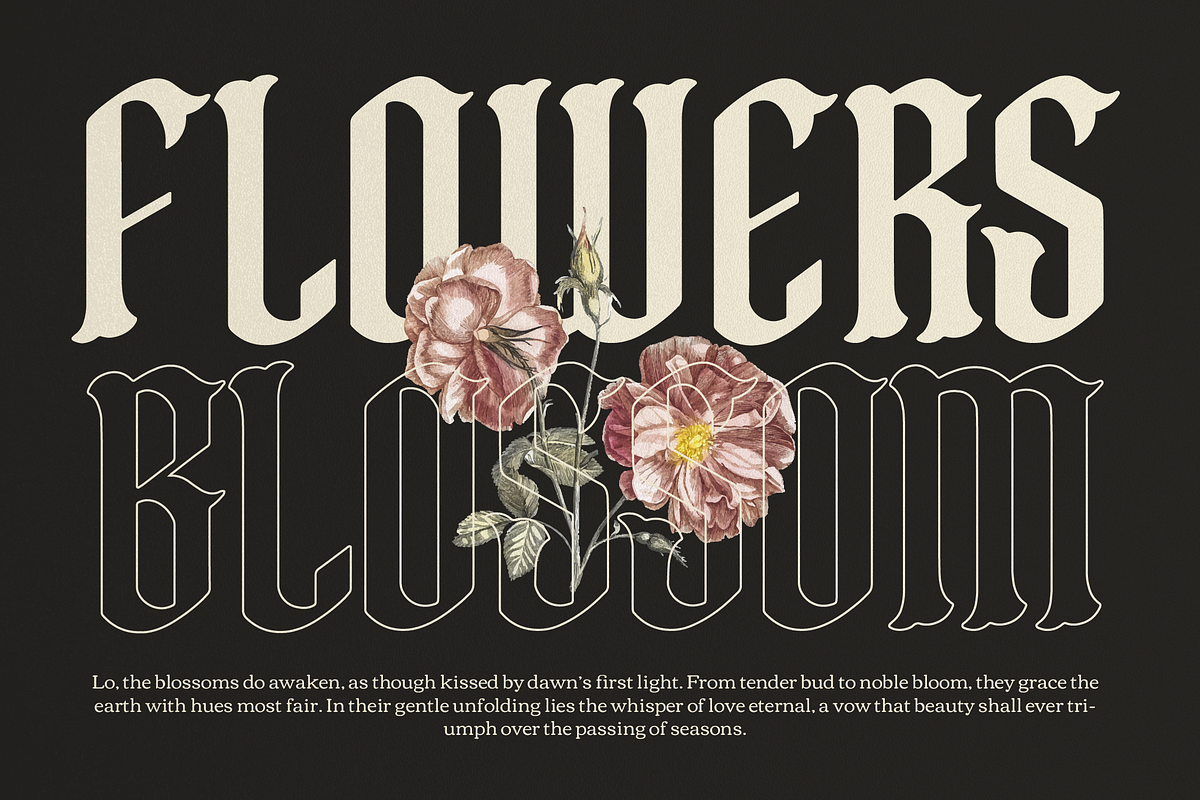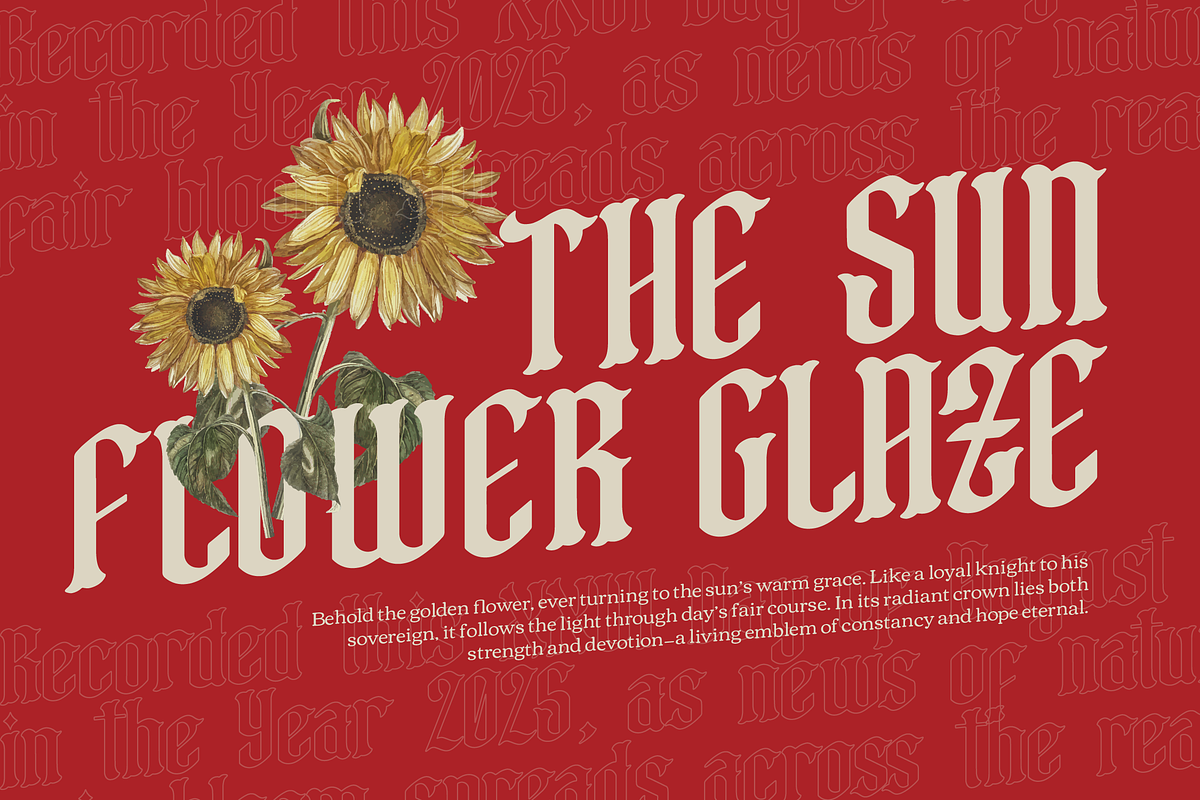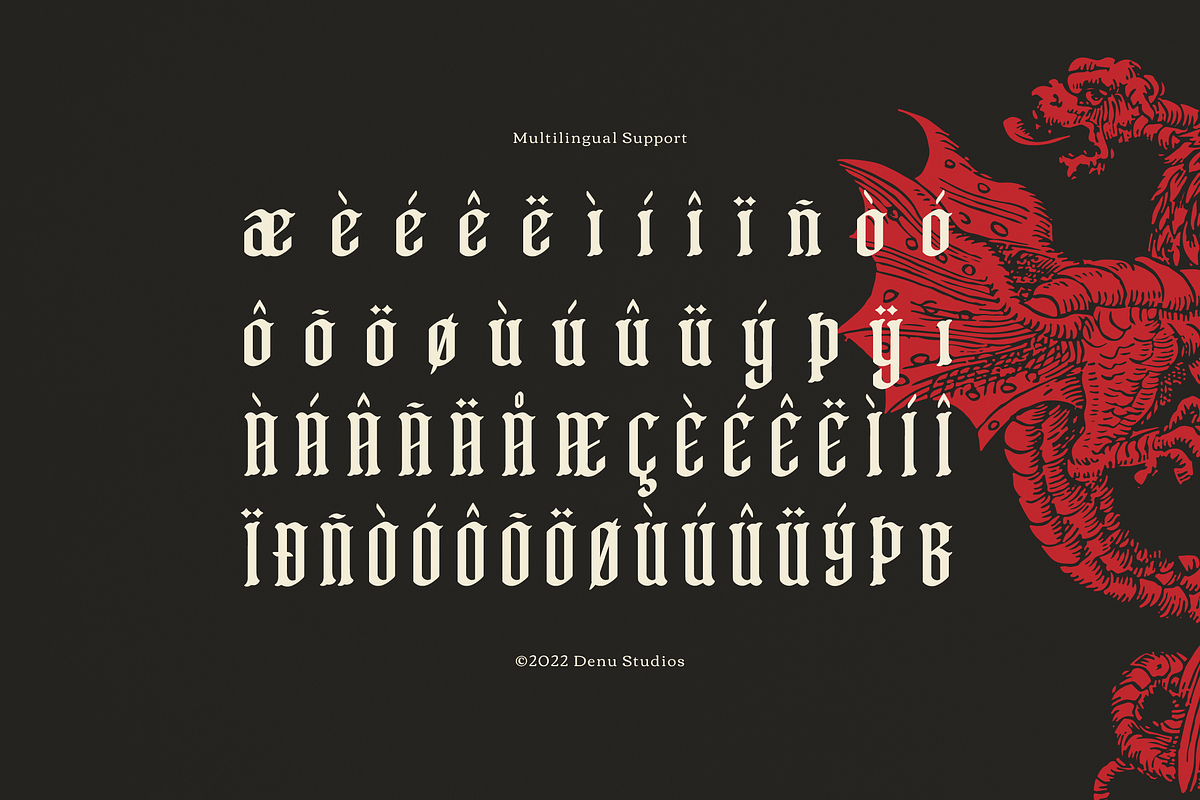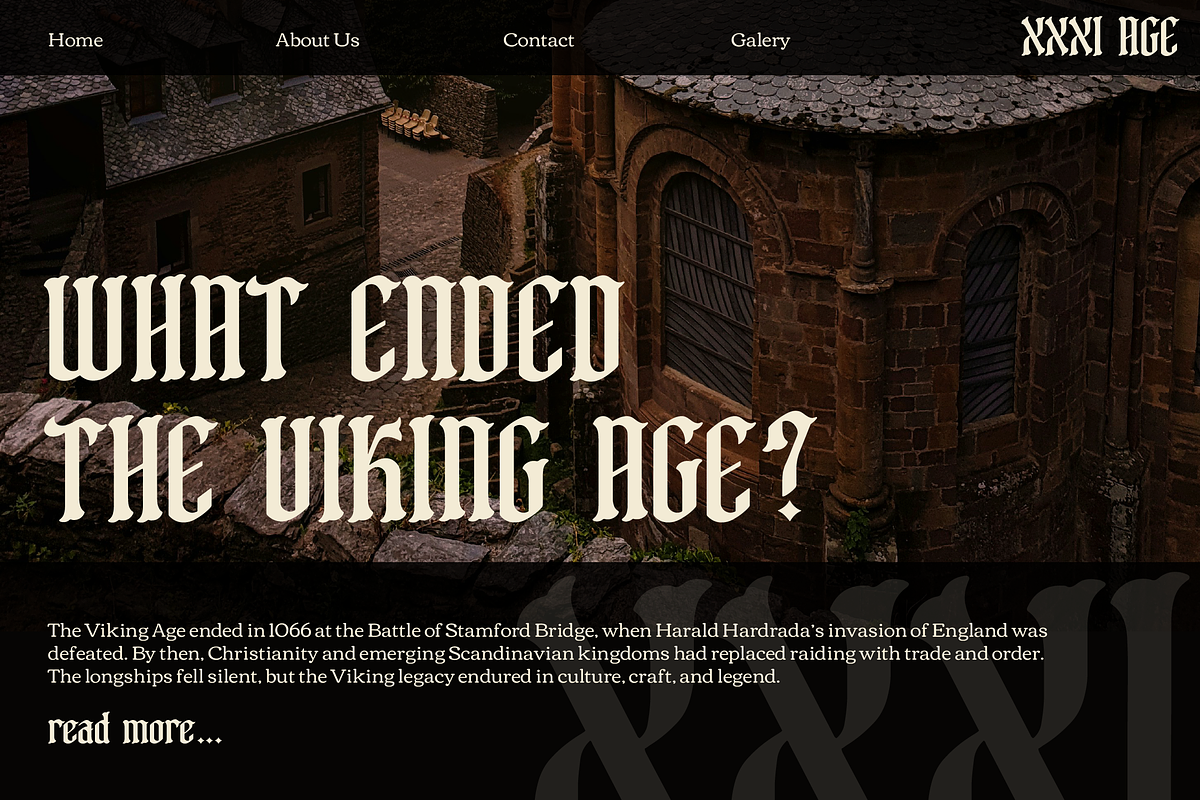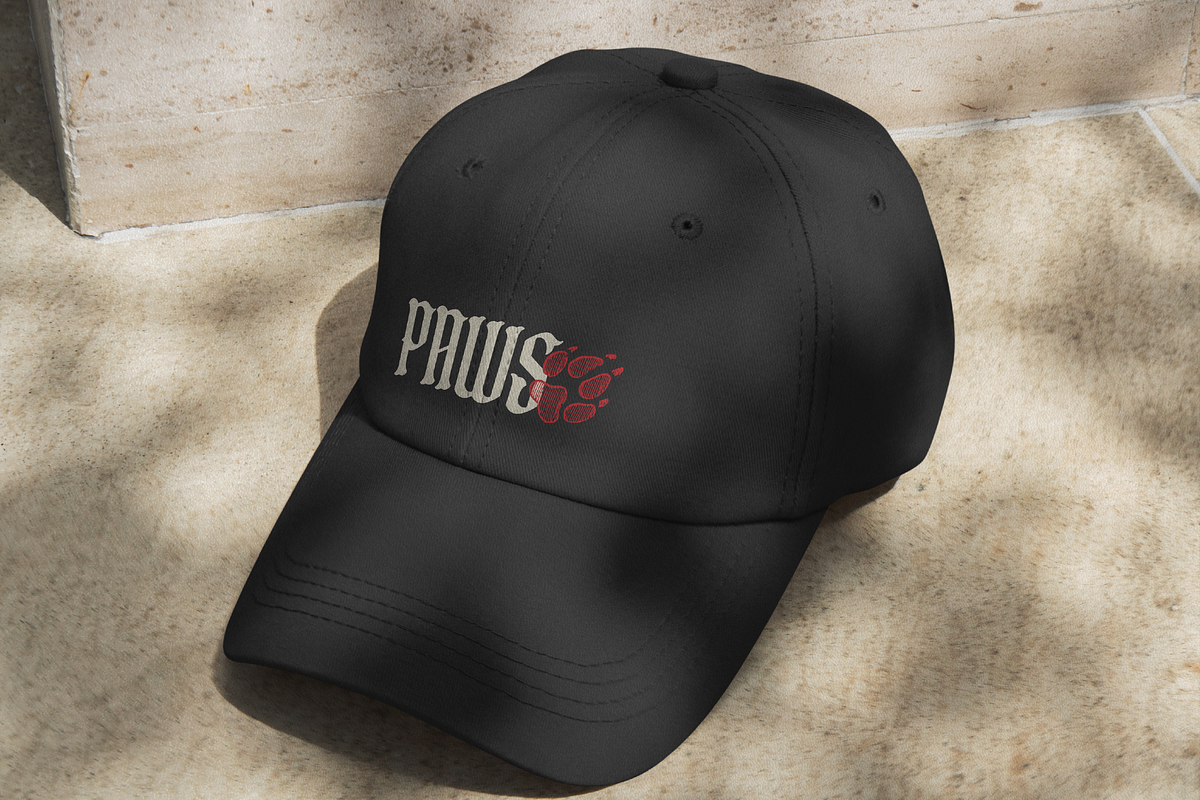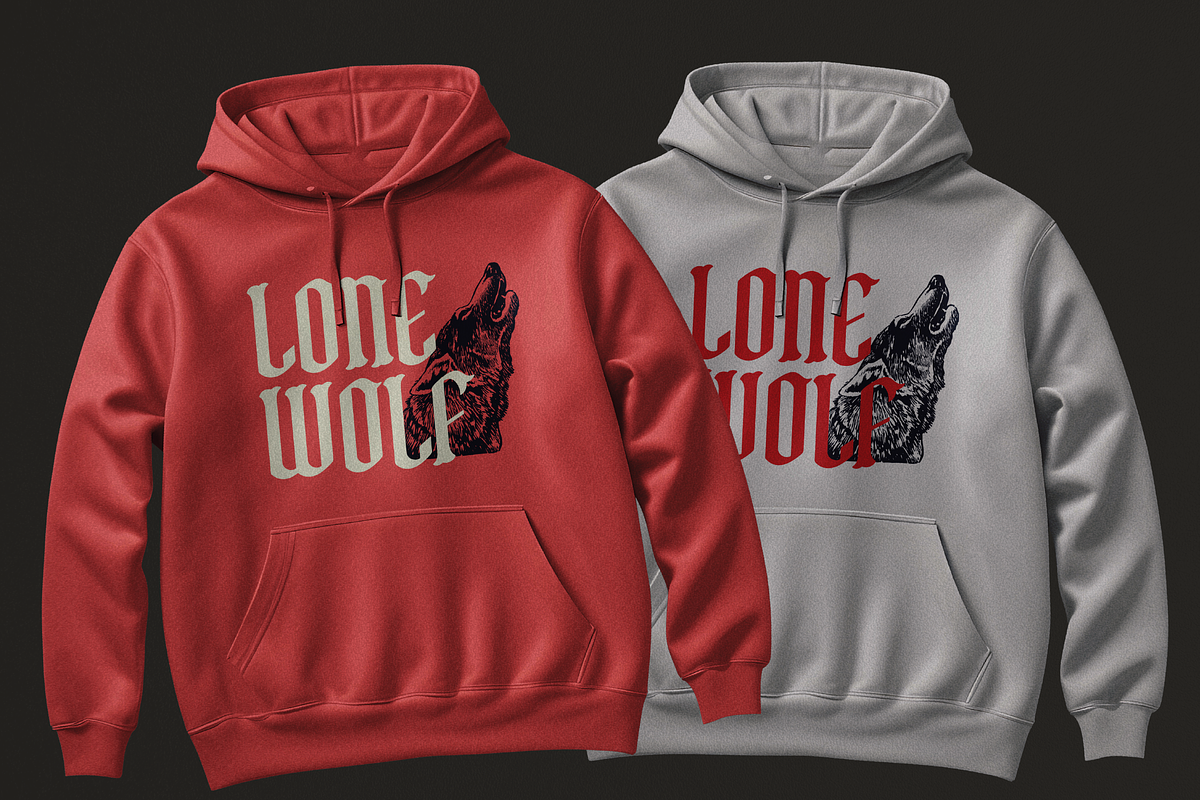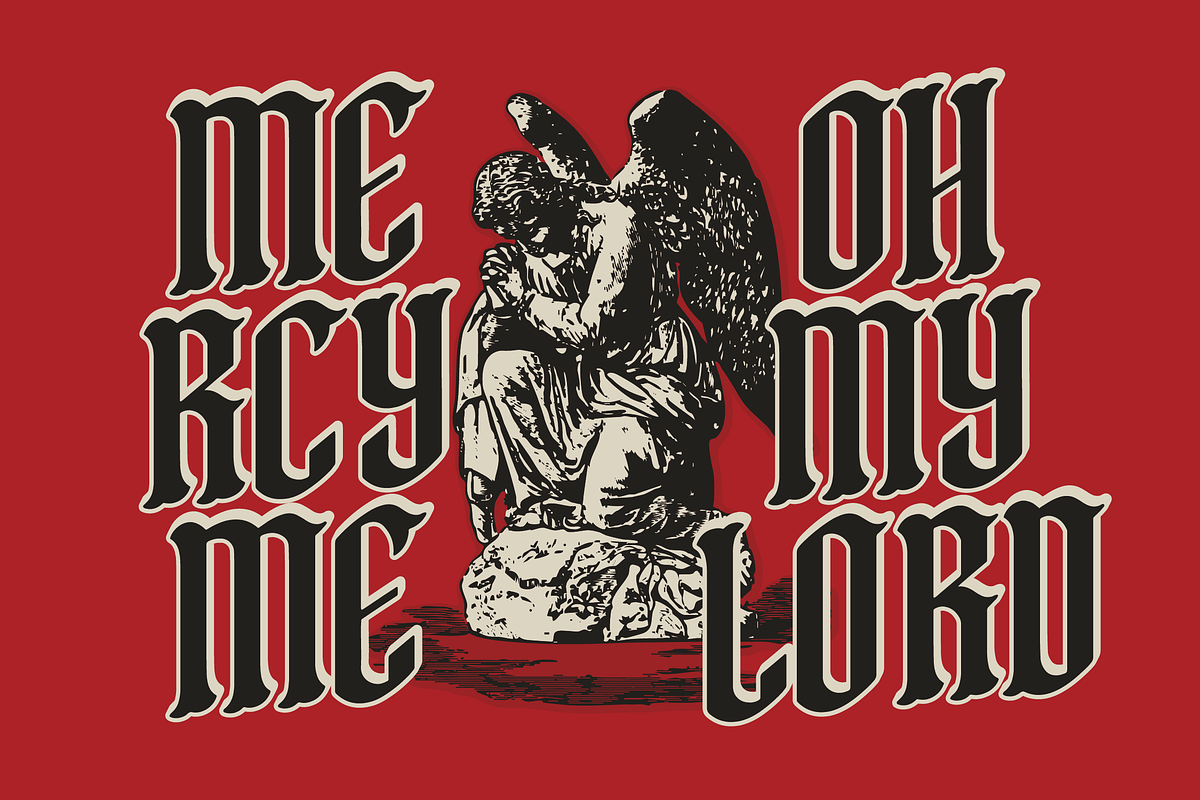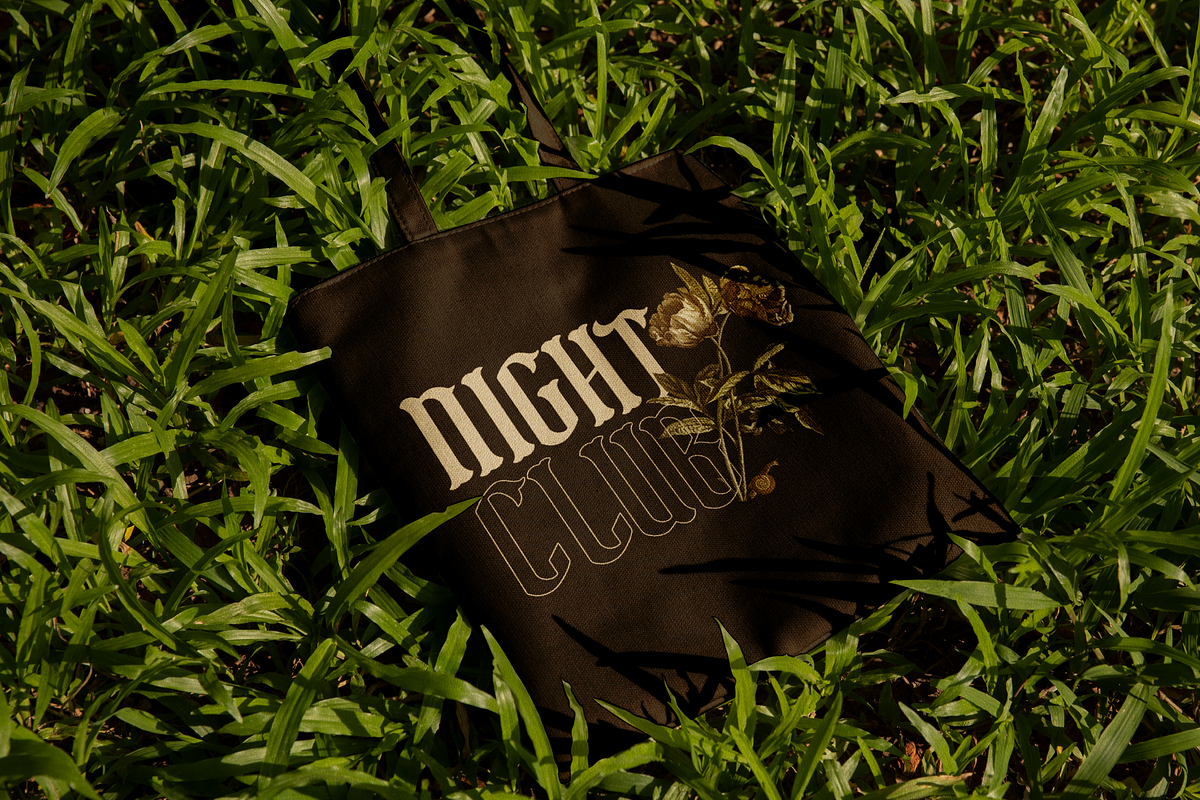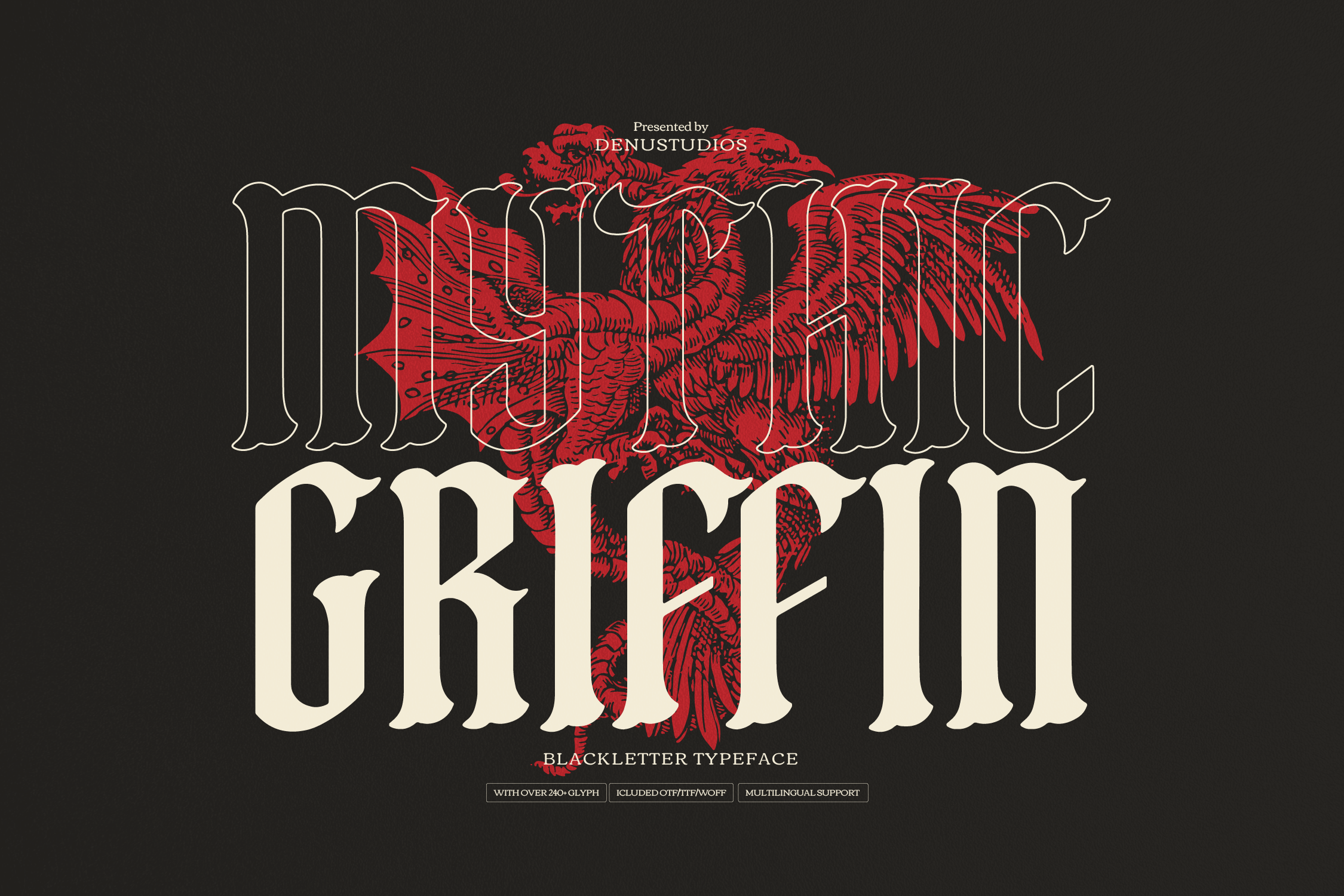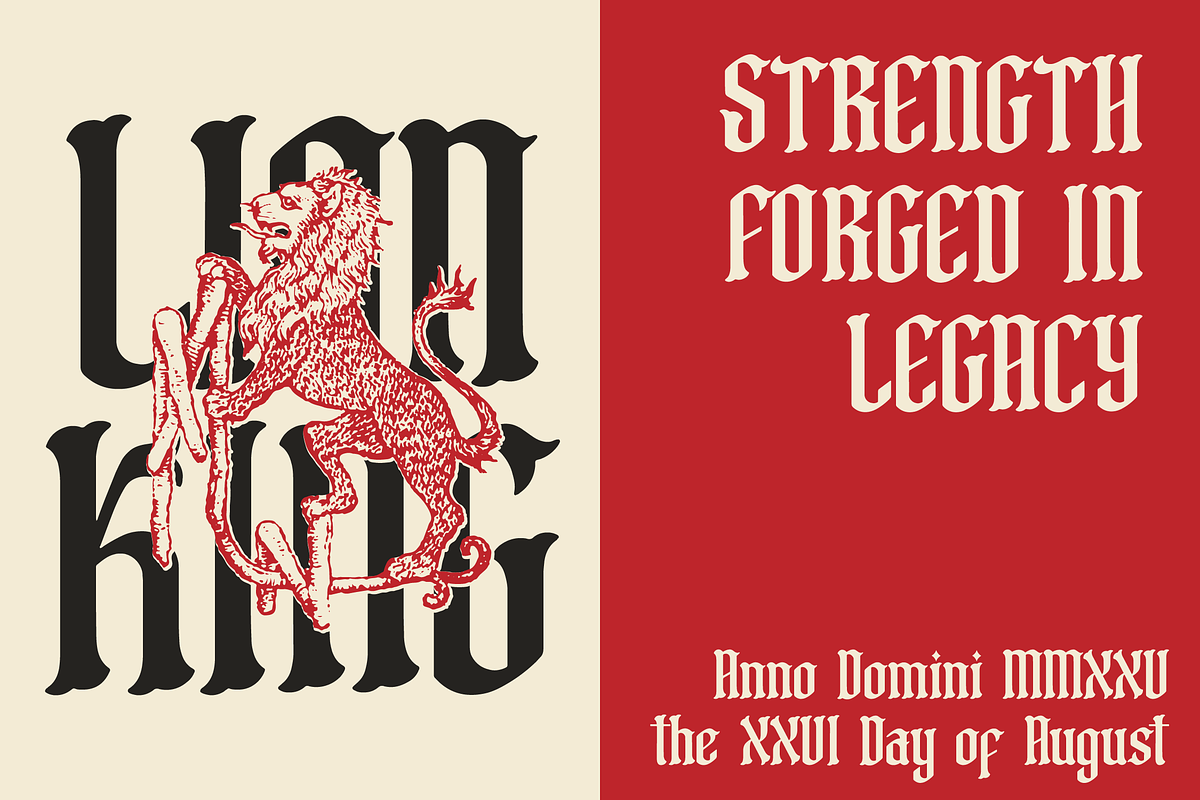
Mythic Griffin | Blackletter Font
Mythic Griffin | Blackletter Typeface, from Denustudios, suitable for any projects such as: logos, branding projects, homeware designs, product packaging, mugs, quotes, posters, shopping bags, t-shirts, book covers, name card, invitation cards, greeting cards, label, photography, watermark, special events, and all your other lovely projects that need a Blackletter Typeface taste.